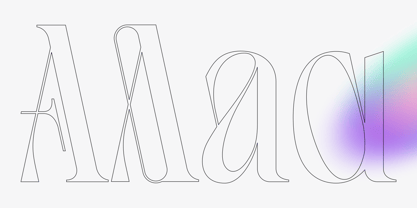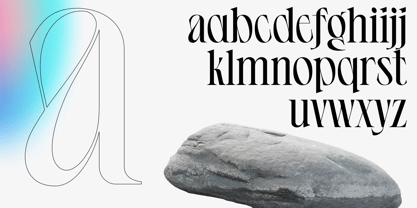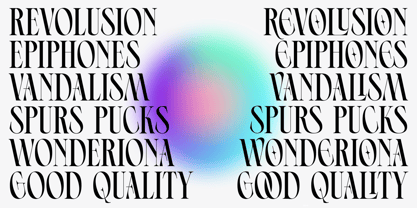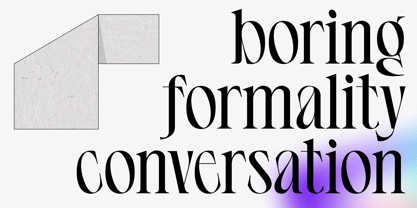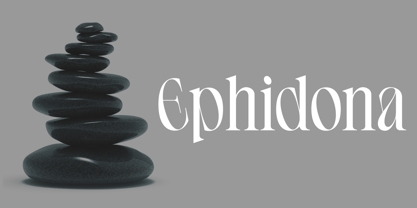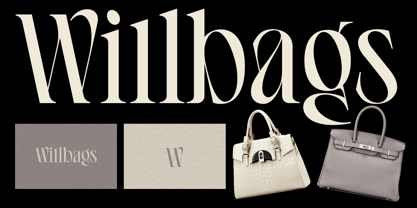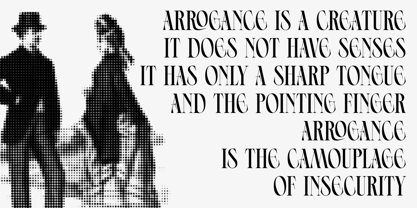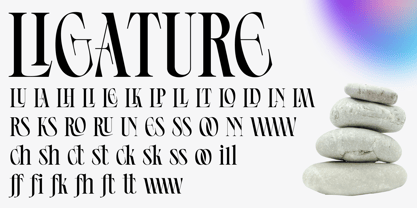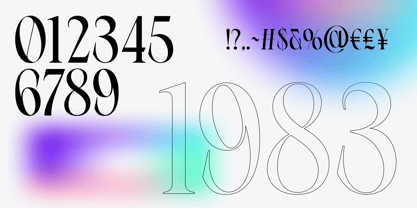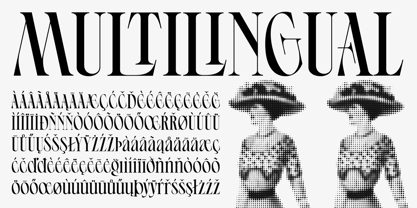
Ephidona
The Ephidona Font Family was designed by Reza Rasenda and published by Zealab Fonts Division. Ephidona contains 1 styles. More about this family
Ephidona is a typeface that thrives in the intersection of high fashion and contemporary art. It belongs to the "Neo-Chic" or "Experimental Serif" movement, where traditional letterforms are pushed to their limits through exaggerated proportions and daring negative space. The font's most striking quality is its verticality; the elongated stems and tall x-height give the text a sense of statuesque authority, making it feel less like mere writing and more like a series of curated sculptures. The intricate details, such as the sharp, wedge-like serifs and the fluid, almost liquid-like curves of the "o" and "a," create a dynamic visual flow. This makes it particularly effective for "hero" typography—those moments in design where the words themselves are the primary visual element. It captures a "less is more" philosophy by using its own structural complexity to fill a page without the need for additional graphics.